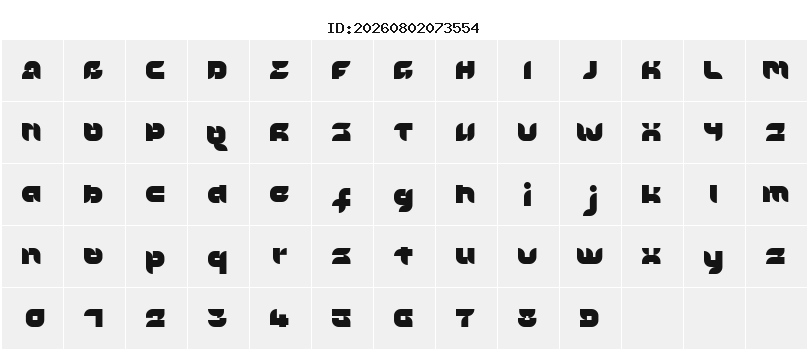
• Font Name: MD Airline AL
About MD Airline AL.ttf
MD Airline AL.ttf is a modern, elegant sans-serif font designed for ultimate readability and visual harmony. Perfect for branding, headlines, web design, and print materials.